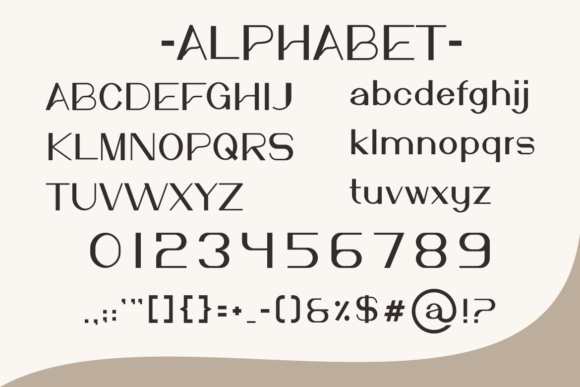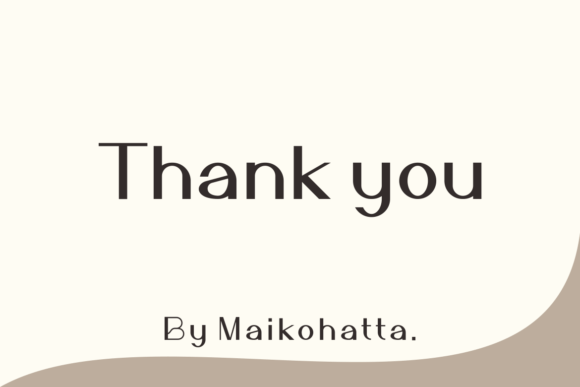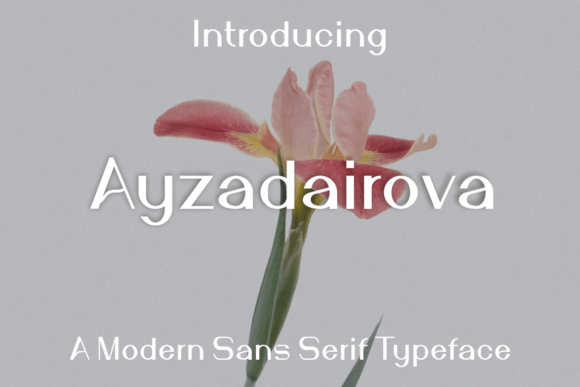
Introduction to Ayzadairova Font
Ayzadairova is a modern and authentic sans serif font.
Classy and stylish, this font will enhance any project you wish to add it to .